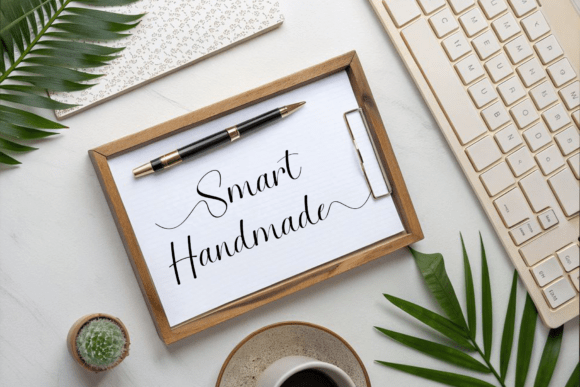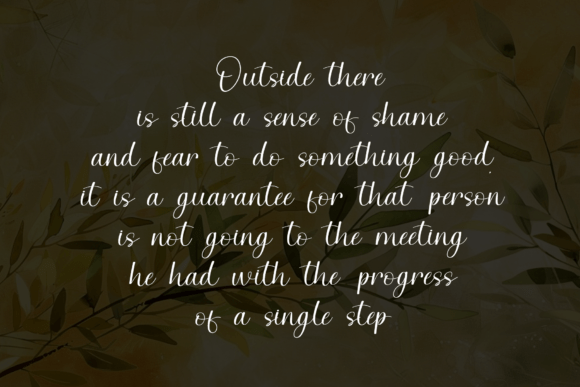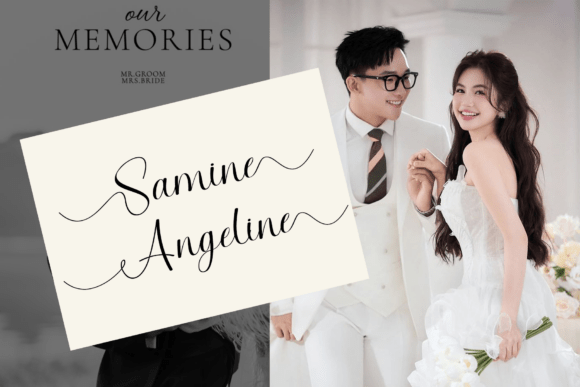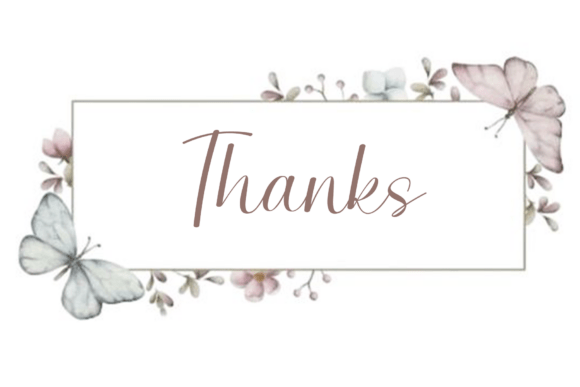
Introducing Automathic Font: Elevate Your Designs with Elegance and Sophistication
In the world of typography, a well-crafted font can make all the difference in creating visually stunning designs. For designers and crafters looking for a touch of elegance and sophistication, Automathic Font is an excellent choice. This beautiful, handwritten script font is designed to add a feminine, professional, and slightly romantic flair to any project.
What Makes Automathic Font Special?
Automathic Font is a graceful, modern, and stylized handwritten script font that boasts smooth, fluid strokes and lovely ornamental curves. Its consistent weight and clean connections ensure excellent legibility, making it perfect for a wide range of applications. Whether you’re creating custom sublimation designs, boutique branding, personalized gifts, or custom stationery, Automathic Font is the ideal choice.
Key Features of Automathic Font
- Smooth and Fluid Strokes: Automathic Font features smooth, fluid strokes that give it a natural and effortless look.
- Lovely Ornamental Curves: The font’s ornamental curves add a touch of elegance and sophistication, making it perfect for designs that require a high level of refinement.
- Feminine and Professional: Automathic Font’s unique blend of feminine and professional characteristics makes it an excellent choice for designs that require a touch of elegance and sophistication.
- Excellent Legibility: The font’s consistent weight and clean connections ensure excellent legibility, even at small sizes.
Automathic Font is versatile and can be used for a wide range of applications, including:
- Custom Sublimation Designs: Add a touch of elegance to your custom sublimation designs, such as personalized mugs, t-shirts, and phone cases.
- Boutique Branding: Use Automathic Font to create stunning brand identities for your boutique or small business.
- Personalized Gifts: Create beautiful personalized gifts, such as customized jewelry, candles, and home decor items.
- Custom Stationery: Add a touch of sophistication to your custom stationery, including wedding invitations, greeting cards, and letterhead.
Why Choose Automathic Font?
With so many fonts available, why choose Automathic Font? Here are just a few reasons:
- Unique and Stylized: Automathic Font is a unique and stylized handwritten script font that will add a touch of elegance to any design.
- Easily Readable: The font’s excellent legibility makes it easy to read, even at small sizes.
- Versatile: Automathic Font can be used for a wide range of applications, from custom sublimation designs to boutique branding.
- High-Quality: Automathic Font is a high-quality font that is designed to deliver exceptional results.
In conclusion, Automathic Font is a beautiful, handwritten script font that is perfect for designers and crafters looking to add a touch of elegance and sophistication to their designs. With its smooth, fluid strokes, lovely ornamental curves, and excellent legibility, Automathic Font is an excellent choice for a wide range of applications. Whether you’re creating custom sublimation designs, boutique branding, personalized gifts, or custom stationery, Automathic Font is the ideal choice. So why wait? Download Automathic Font today and elevate your designs to the next level!